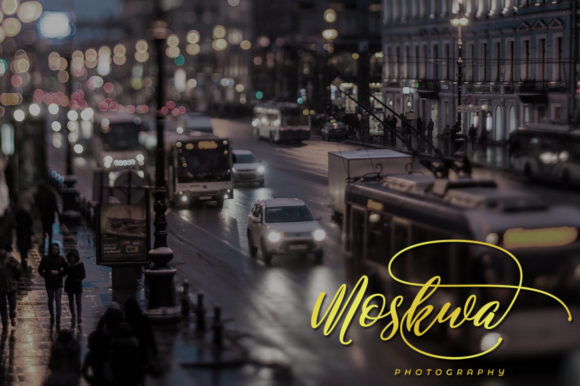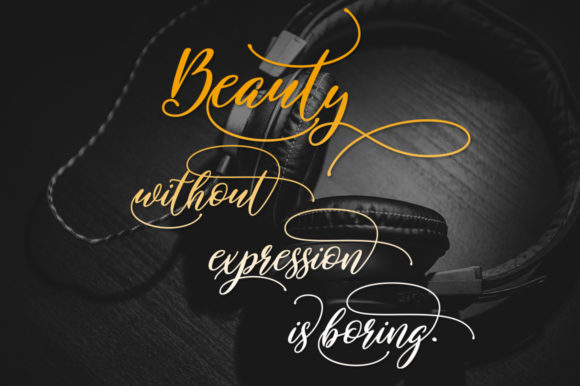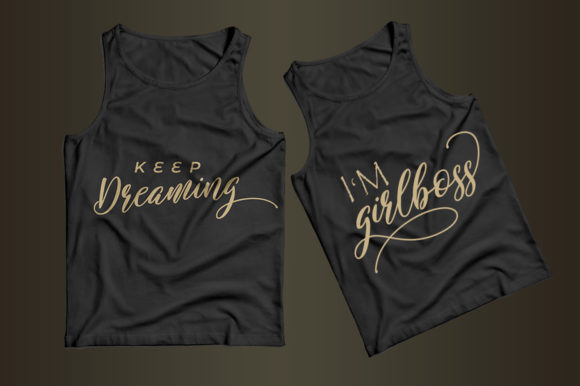
Introduction to Shakeglow Script Font
The Shakeglow is an elegant combination of a script and a narrow modern serif.
It is slender, feminine and classy, while still maintaining a friendly feel Its versatile style works perfectly for fashion, e-commerce brands, trend blogs, wedding boutiques or any business that wants to appear upscale and chic.